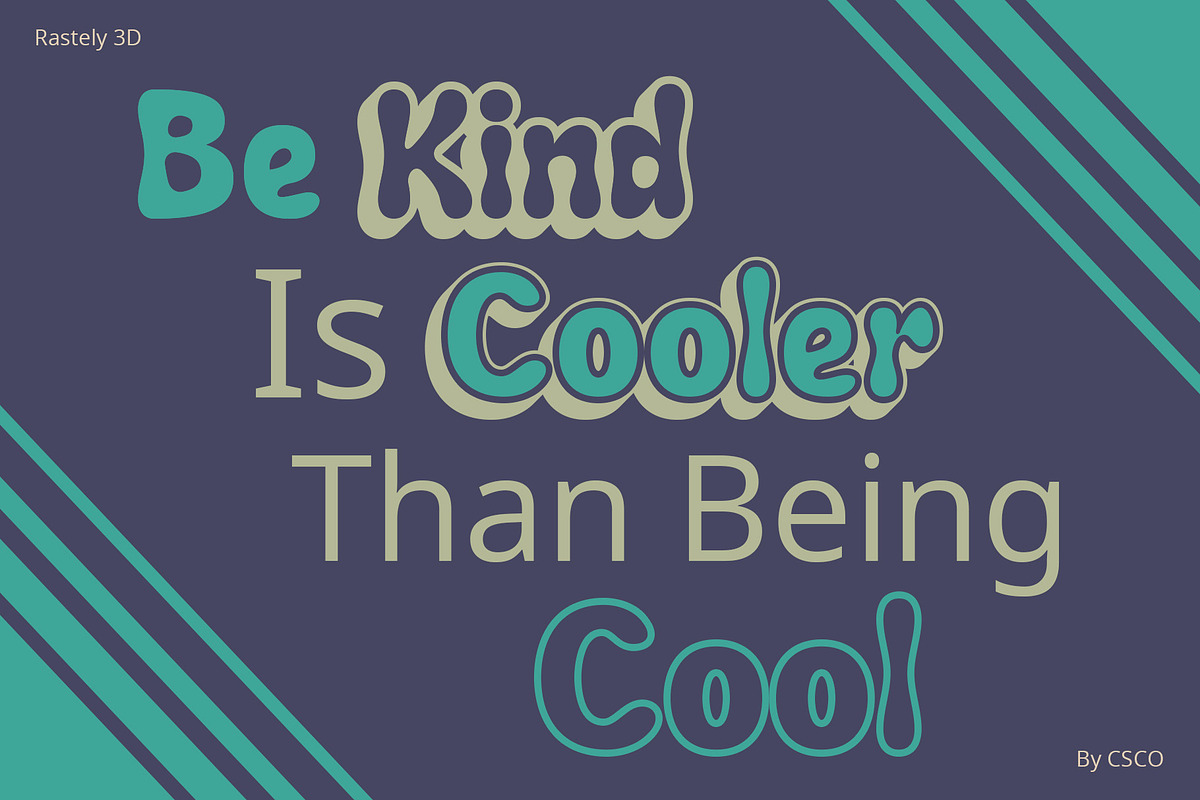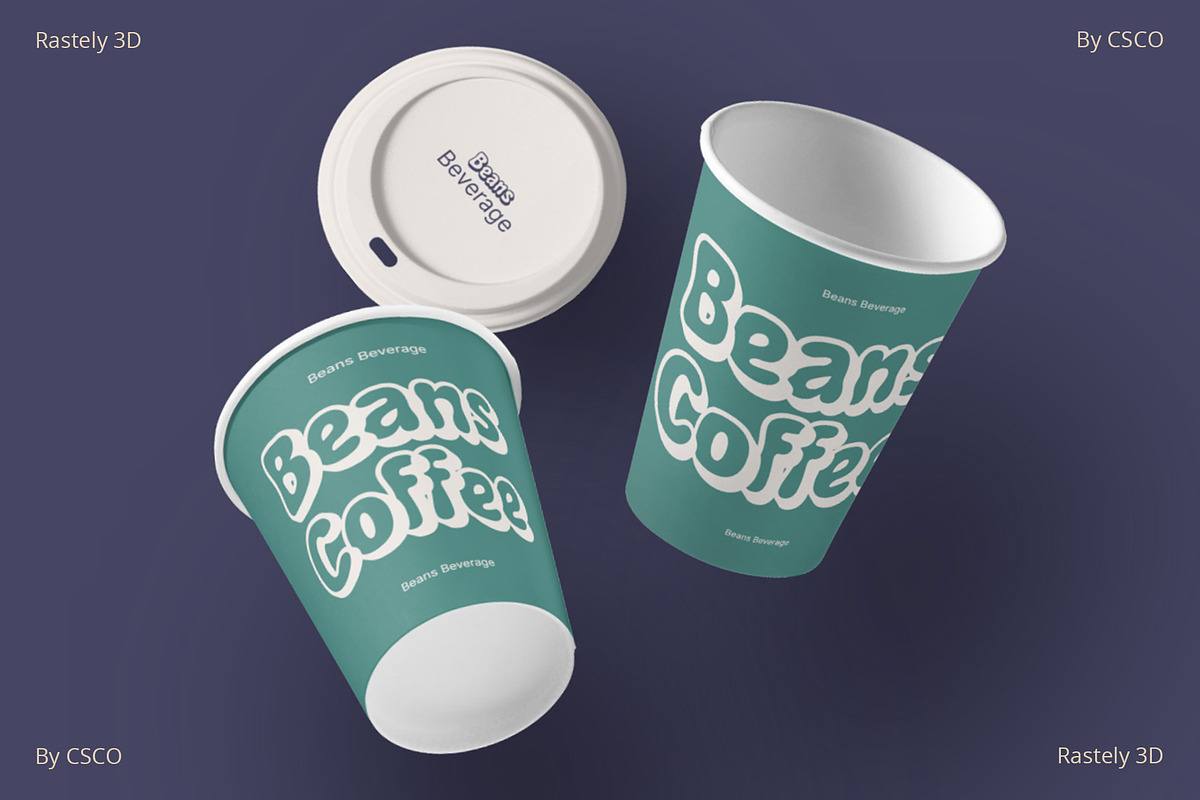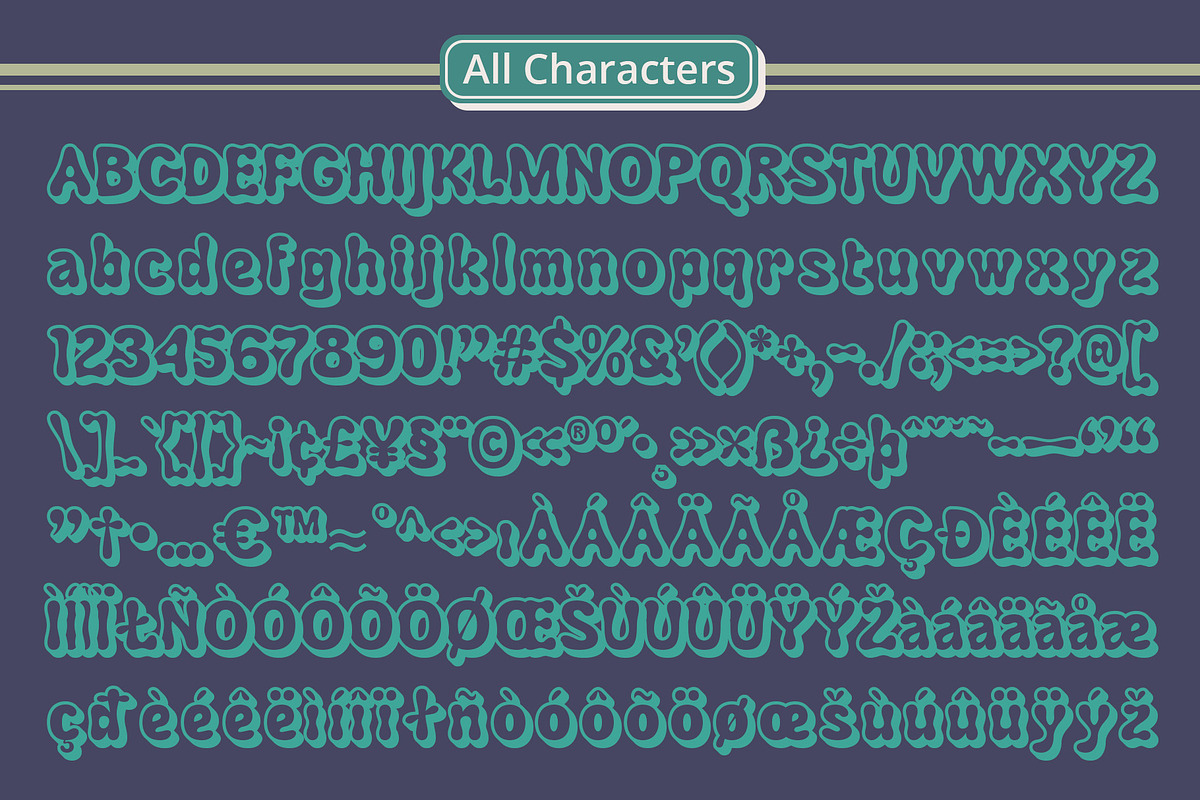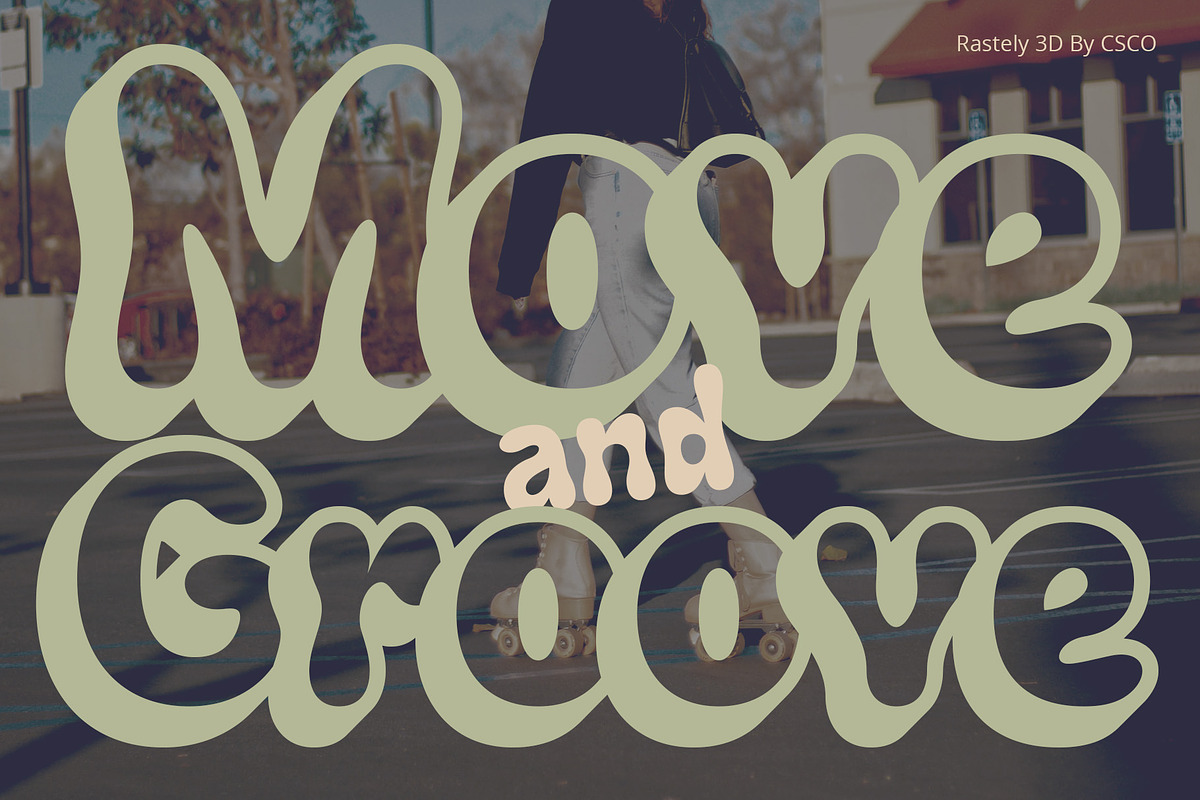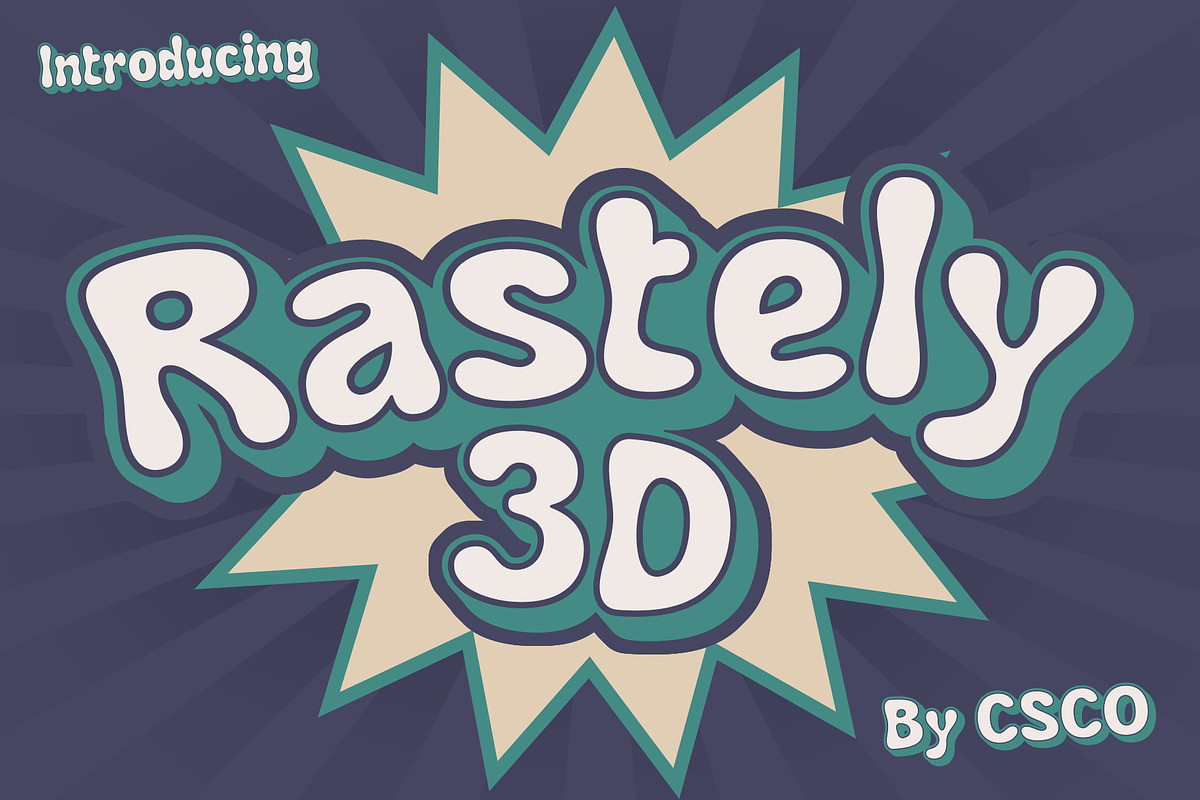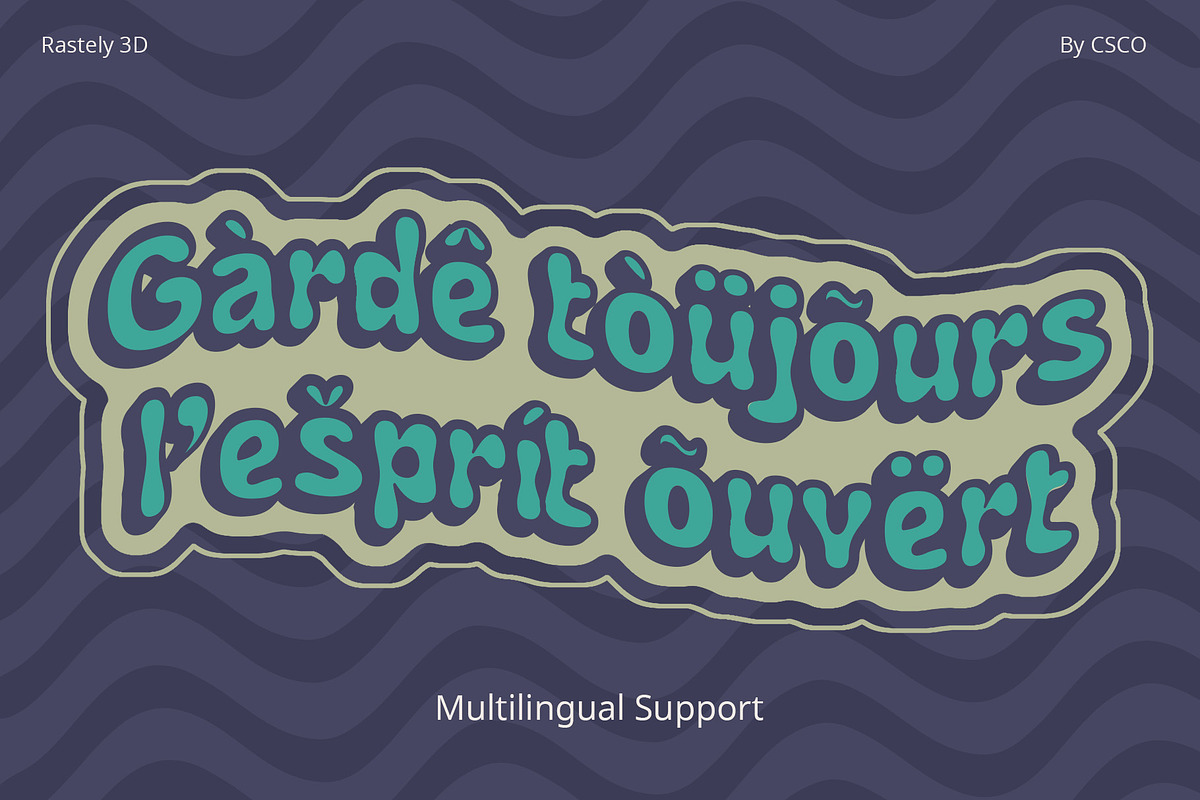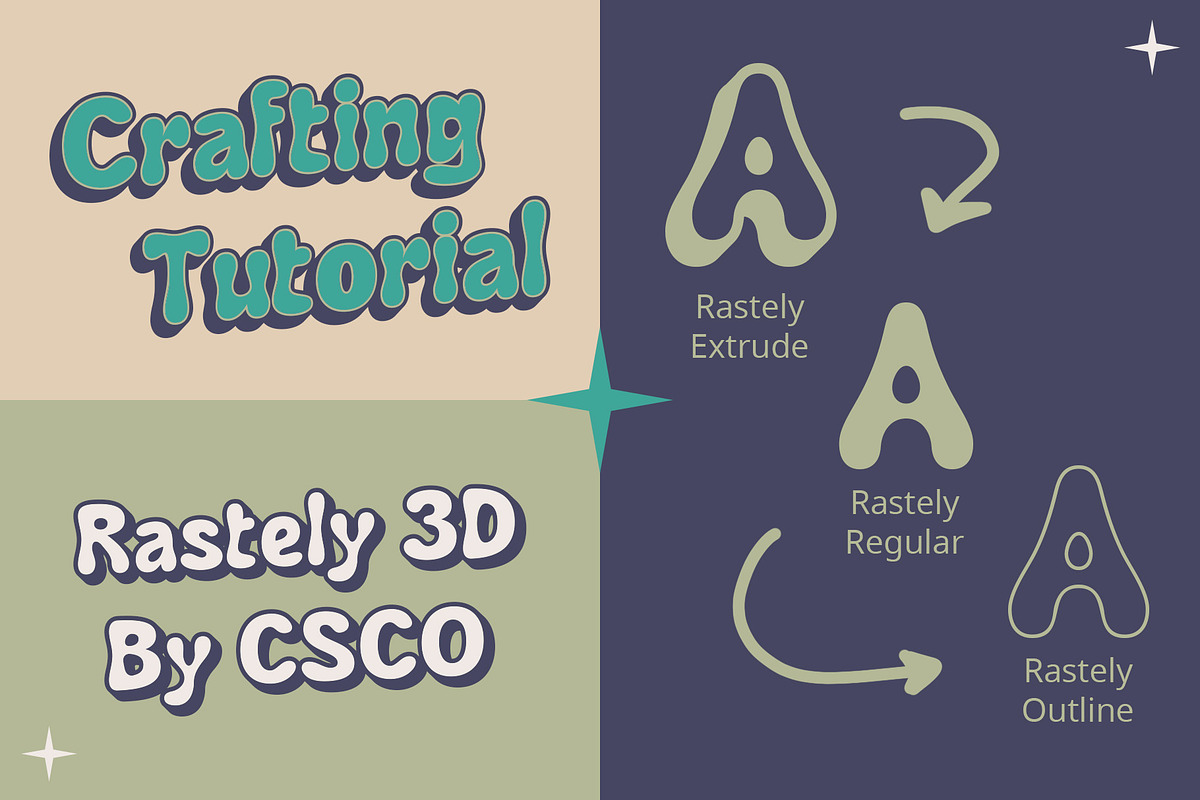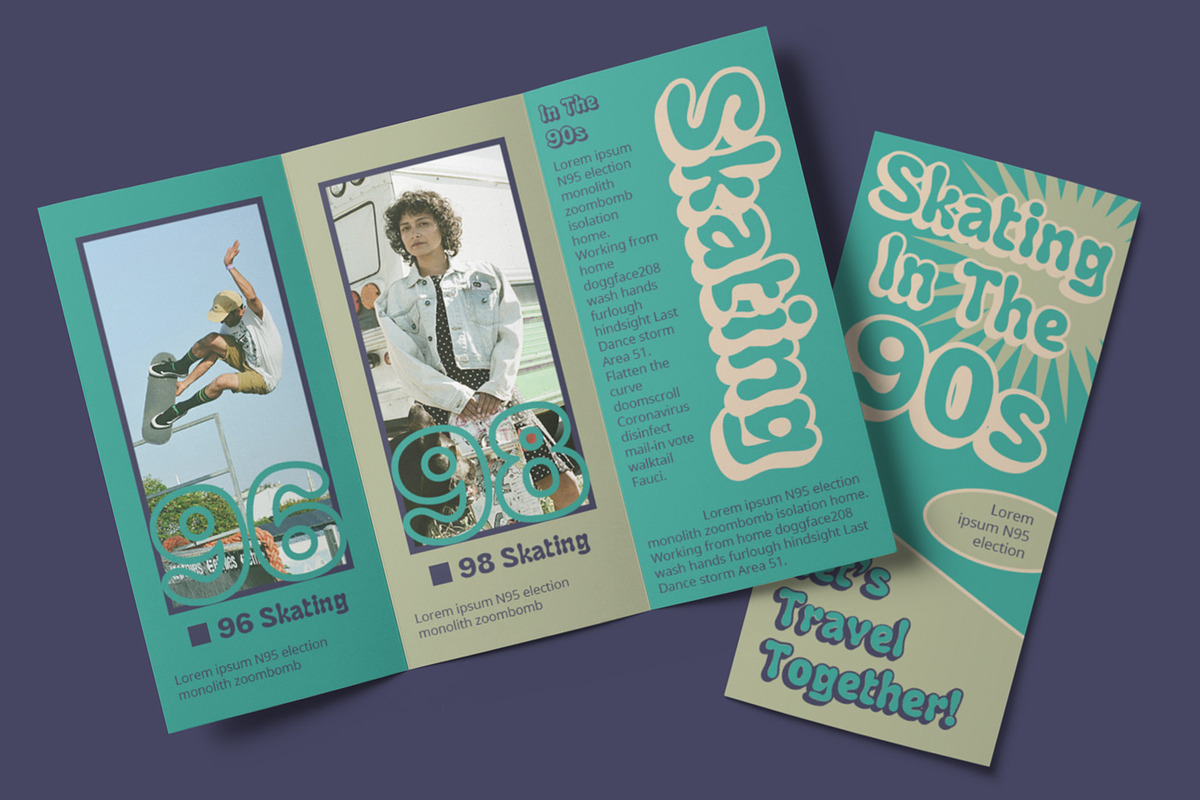
Rastely 3D
Rastely 3D Font: Playful Psychedelia in Typography
Trippy Vibes, Playful Letters Step into the whimsical world of Rastely 3D, a font that draws inspiration from psychedelic, trippy aesthetics, bringing playful vibes to your designs.
Dimensional Delight Rastely 3D goes beyond the ordinary with its captivating 3D effect. The clever use of extrude and outline techniques gives each character a dynamic and lively appearance.
Playfulness Personified This font isn’t just about dimension; it embodies playfulness. The vibrant letters dance with an animated energy, making it perfect for projects that demand a touch of quirkiness.
Versatility Meets Vibrancy While it embraces the trippy, Rastely 3D is versatile. It seamlessly integrates into a spectrum of designs, from posters to digital art, infusing each project with a dose of vibrant character.
Conclusion Rastely 3D isn’t just a font; it’s an adventure into the world of playful typography. Elevate your designs with this font, where every letter is a burst of energetic creativity.
- Rastely Regular
- Rastely Outline
- Rastely Extrude Right
- Rastely Extrude Left